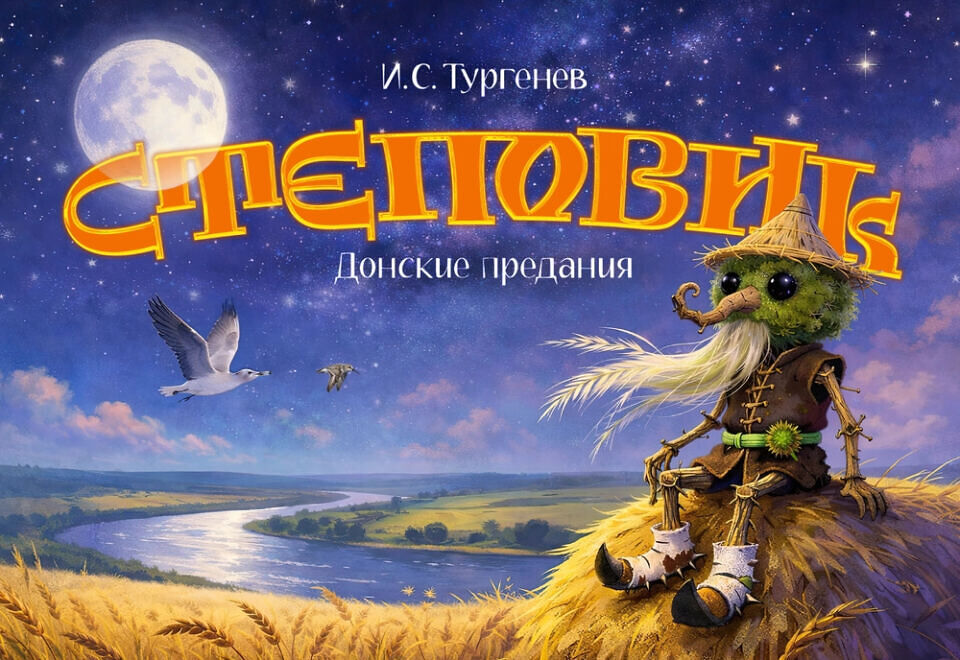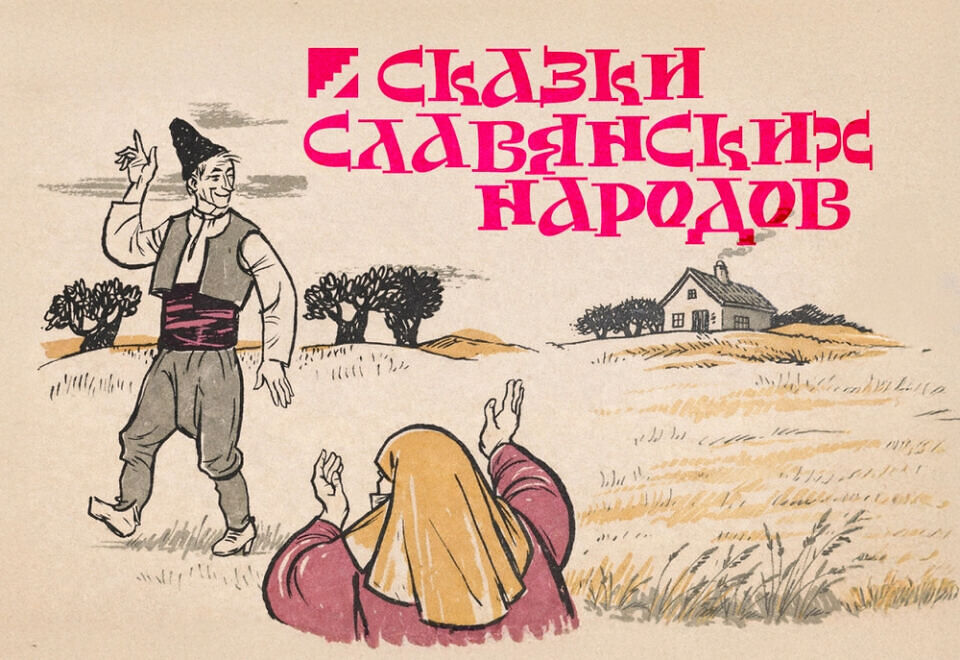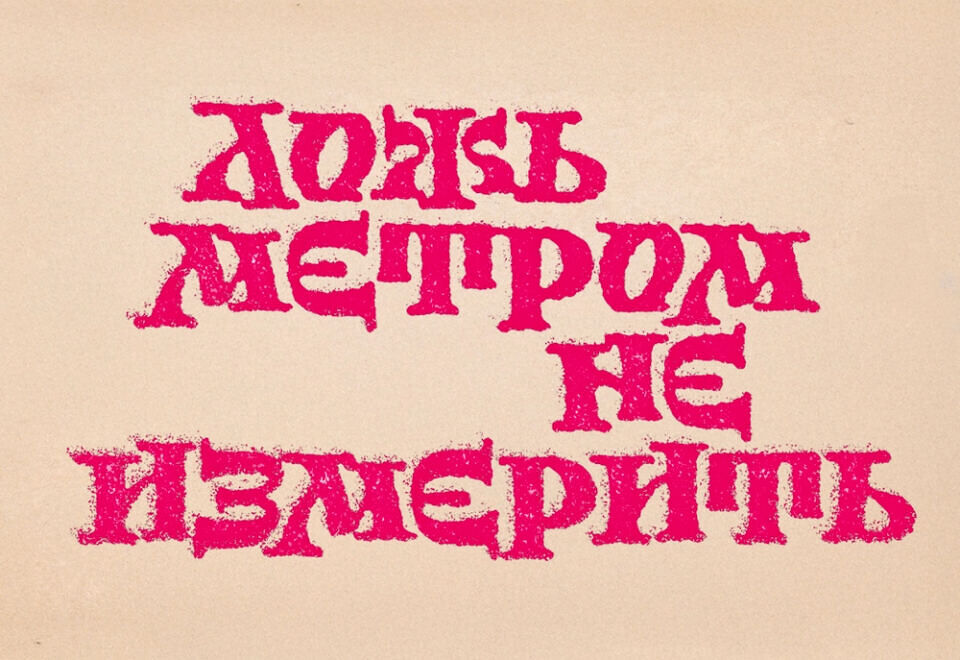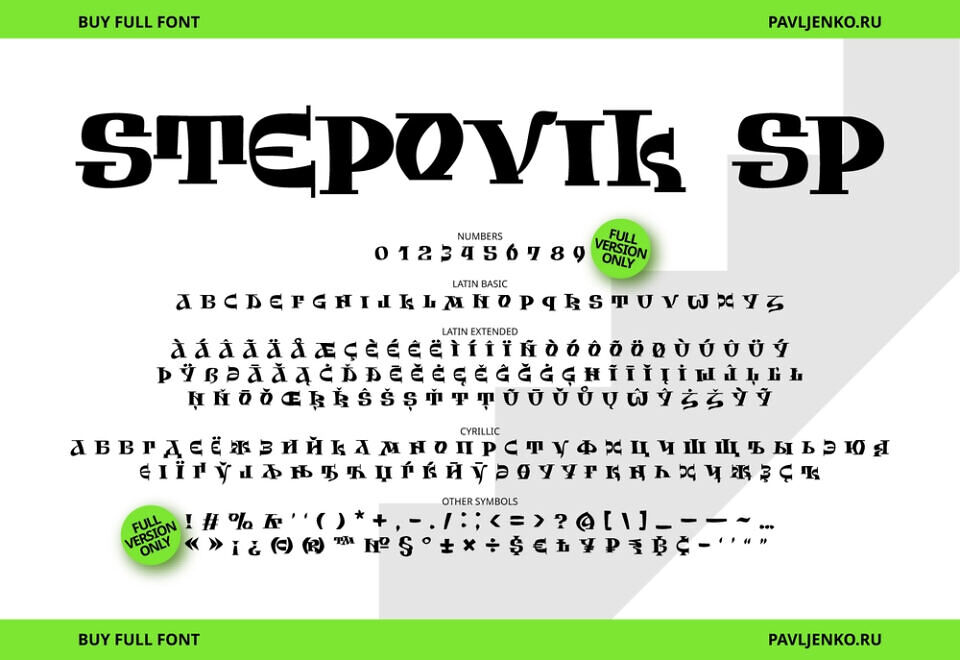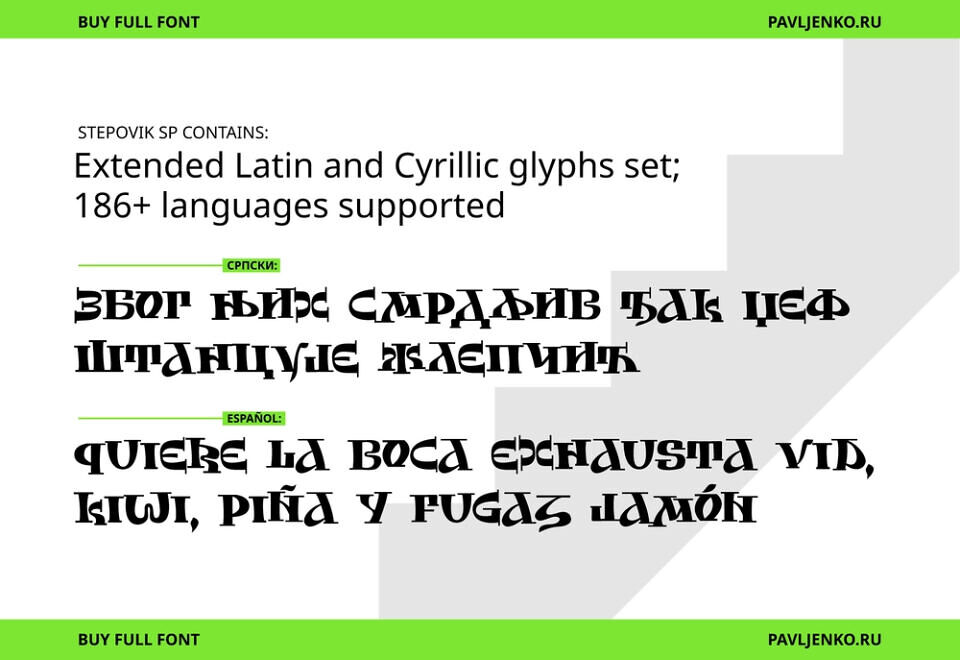
Stepovik SP is a display typeface in a folk style, featuring a lively, slightly “dancing” rhythm. Its design inherits and reimagines the Slavic Ustav tradition: the bold silhouettes, stroke logic, and letter constructions are translated into a more modern, decorative presentation.
Internal notches and non-standard connections make the line expressive and handcrafted—as if it were woodcarving or a manual stamp rather than the sterile typography of a scribe. The font is best revealed in large sizes—in headings, on covers, posters, packaging, and logos—whenever a folkloric character and recognizable Slavic aesthetic are required.